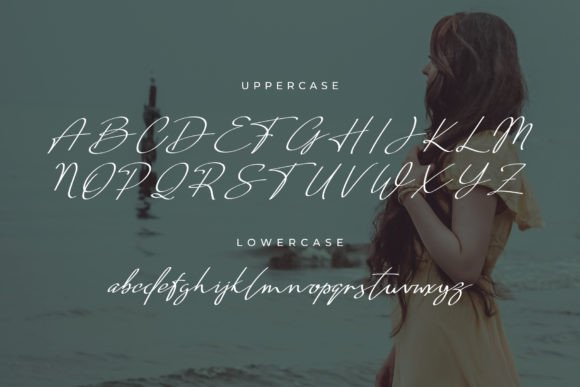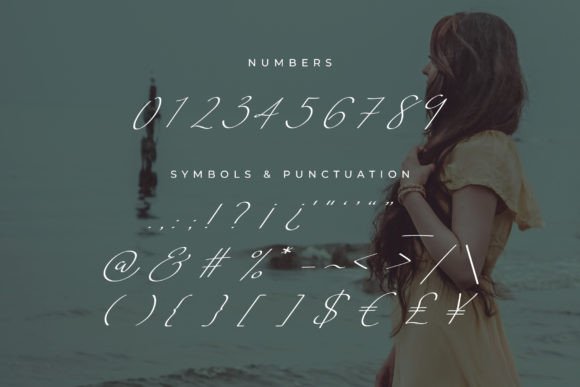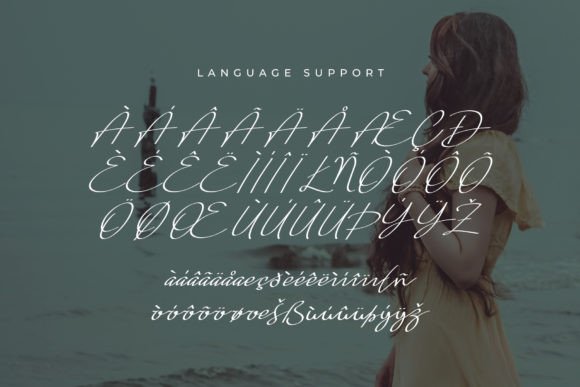
The Art of Authentic Handwriting
There’s something special about receiving a handwritten letter or card from a loved one – the personal touch, the thought behind each scribbled word, and the unique character that comes with it. As creatives, we strive to capture this essence in our designs, making them feel genuine and heartfelt. That’s where the Arielle Signature Font comes in – a beautiful, handwritten typeface that adds an elegant touch to your work.
Perfect for authentic handwriting and signatures, the Arielle Signature Font features calligraphic script elements with mixed width strokes and looping characteristics that will make your designs stand out. With its extensive kerning, this font flows beautifully from letter to letter, creating a cursive handwriting effect that’s simply stunning. Whether you’re a graphic designer, artist, or simply someone who loves beautiful typography, the Arielle Signature Font is an invaluable tool in your creative arsenal.
Arielle Signature Font Key Features
- Unique Characteristics: Elegant, cursive script with swashes and flourishes, perfect for signatures, logos, and hand-written text
- Style Options: Includes 4 variations: Regular, Italic, Bold, and Bold Italic, offering versatility for different design needs
Arielle Signature Font Review
I recently had the chance to work with the Arielle Signature Font, and I must say, it’s a unique and elegant addition to any design project. ✨ The font’s cursive script style adds a touch of sophistication and luxury, making it perfect for high-end branding, wedding invitations, or any other design that requires a bit of glamour.
- The Arielle Signature Font is incredibly versatile, and its many ligatures and swashes make it perfect for creating custom, handwritten-looking text.
- The font’s high-quality vector graphics ensure that it scales beautifully, whether you’re using it for print or digital designs.
- The Arielle Signature Font also includes a range of punctuation and symbol glyphs, making it easy to add a personal touch to your designs.
While the Arielle Signature Font is a great addition to any designer’s toolkit, there are a few limitations to be aware of. ⚠️ The font’s complexity can make it difficult to use for beginners, and the many ligatures and swashes can be overwhelming at first.
Overall, I was impressed with the Arielle Signature Font’s unique style and versatility. With a bit of practice, it’s easy to get the hang of using this font, and the results are well worth the effort. I’d definitely recommend the Arielle Signature Font to designers looking to add a touch of elegance to their projects.
Getting the Most Out of Arielle Signature Font
For the best results, use the Arielle Signature Font with a clean and simple background.
Experiment with different font sizes and colors to create a visually appealing signature.
Consider pairing the Arielle Signature Font with a matching font for body text to create a cohesive look.
The Arielle Signature Font is perfect for creating a professional and elegant signature for business cards, letterheads, and email signatures.
It’s also great for creating custom graphics, social media graphics, and marketing materials.
Alternatives to Arielle Signature Font for Designers
Great Vibes is a modern, cursive script font that is ideal for creating a relaxed and friendly atmosphere. It’s perfect for use in wedding invitations, greeting cards, and other social media graphics.
Great Vibes has a more elegant and refined feel compared to Arielle Signature Font, which is more playful and whimsical. Great Vibes is also more versatile and can be used in a wider range of design projects.